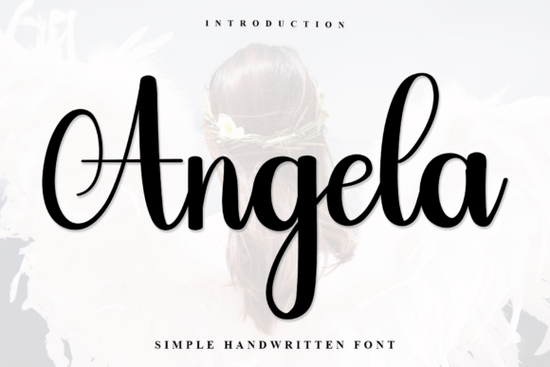
Looking for a handwritten font that feels both relaxed and polished? The Angela Font brings exactly that kind of balance. With fluid strokes and an organic, slightly imperfect feel, it works beautifully across branding projects, wedding invitations, social media posts, and small business materials. It's the kind of typeface that adds warmth without trying too hard and that's what makes it so useful for everyday creative work.
What Makes Angela Font Different from Other Handwritten Typefaces?
There's no shortage of handwritten fonts available today, but not all of them strike the right tone. Some feel too messy. Others look overly polished and lose the human quality that makes handwriting appealing in the first place.
Angela sits in a comfortable middle ground. Its casual elegance gives it versatility you can use it for a bakery's Instagram story, a yoga studio's brand identity, or a set of printable greeting cards. The slightly loose letter connections keep it feeling approachable, while the consistent baseline ensures it stays readable across different sizes.
If you've explored options like a flowing script with elegant loops, you'll notice Angela takes a more understated approach. It doesn't rely on dramatic swashes or ornate details. Instead, it wins you over with simplicity and warmth.
Who Is This Font Best Suited For?
Angela works well for a wide range of creators:
- Print-on-demand sellers who need readable fonts for mugs, tote bags, and apparel designs
- Small business owners creating logos, menus, packaging, or signage
- Wedding and event stationers designing invitations, place cards, and save-the-dates
- Social media managers making quote graphics, stories, and promotional posts
- Crafters and hobbyists working on Cricut projects, scrapbooking, or digital planners
Because of its clean handwritten style, it performs well in both digital and print formats. You won't have to worry about legibility issues when scaling it down for smaller text or enlarging it for display use.
What Design Projects Pair Well with This Style?
Here are a few specific ways to put Angela to work:
- Brand identity kits Use it for wordmarks, taglines, or secondary headline text alongside a clean sans-serif body font.
- Seasonal promotions Its friendly tone fits holiday sales, spring launches, and limited-edition product announcements.
- Digital products Think printable wall art, journal covers, sticker sheets, or greeting card templates.
- Blog and website accents Pull quotes, section headers, and sidebar callouts benefit from a handwritten touch.
For projects that need a softer, more romantic feel, you might also look at something like a classic script with vintage charm. But when you want something that feels modern and effortless, Angela is a strong choice.
Can I Use It with Other Script Fonts?
Absolutely. Pairing handwritten fonts is a popular design technique, especially for wedding invitations and branding work. Angela's simplicity means it won't clash easily with bolder or more decorative scripts.
For example, you could use a more elaborate typeface like a romantic duo font pairing for main headlines and let Angela handle supporting text or subtitles. This creates visual hierarchy while keeping the overall look cohesive.
You could also explore pairings with softer options such as a delicate handwritten script for layered typographic compositions. The key is to let one font lead and the other support never compete.
Is It Easy to Access Alternates and Ligatures?
Like most quality handwritten fonts, Angela includes stylistic details that help your designs look more natural. Accessing alternates through your design software whether that's Adobe Illustrator, Photoshop, Canva, or Procreate lets you swap out repetitive letters and add variety to your text blocks.
This matters most in larger text settings like logos or poster headlines, where repeated characters can look obviously uniform. A quick alternate swap makes everything feel more hand-lettered and organic.
If you enjoy fonts with playful personality, something like a whimsical script with a fun vibe might also catch your eye as a complement to Angela in your font collection.
Where Can I Find Fonts Like Angela?
You can browse the full selection of handwritten and script fonts on Creative Fabrica, which offers thousands of options for designers, crafters, and commercial creators. Their subscription model gives you access to fonts, graphics, and craft files all in one place helpful if you work across multiple creative projects regularly.
Quick Checklist Before You Start Designing
- ✅ Test Angela at multiple sizes to see where it reads best in your project
- ✅ Pair it with a simple sans-serif or clean serif for body text
- ✅ Explore alternates in your design software for a more natural look